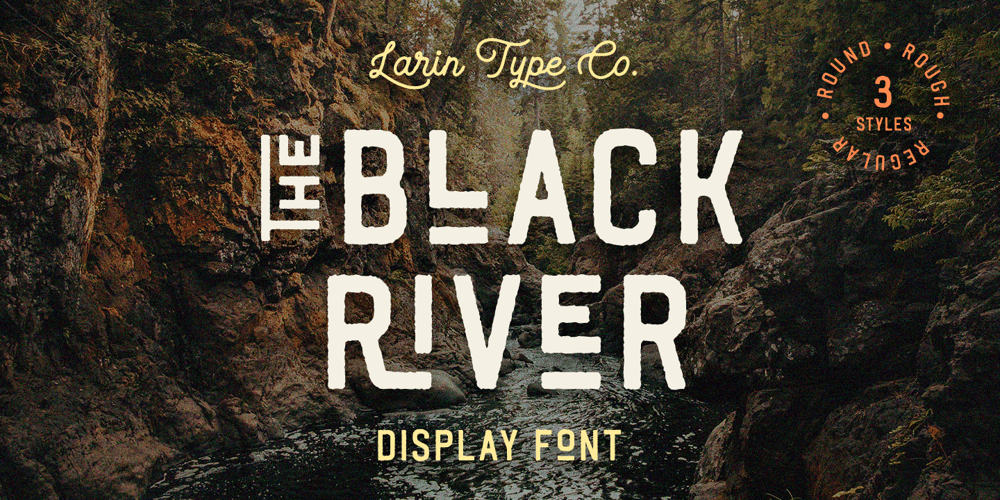
Black River Font Family was designed by Pavel Larin and published by Larin Type Co. Black River contains 3 styles and family package options. Black River It is a stunning display font that comes in three styles: Regular, Round and Rough. It also includes many alternatives and ligatures, so make them up to the extent that your design’s creativity is enough. This versatile it can be used both in modern projects and in vintage ones, as a main or additional one. This font is easy to use, has OpenType features.